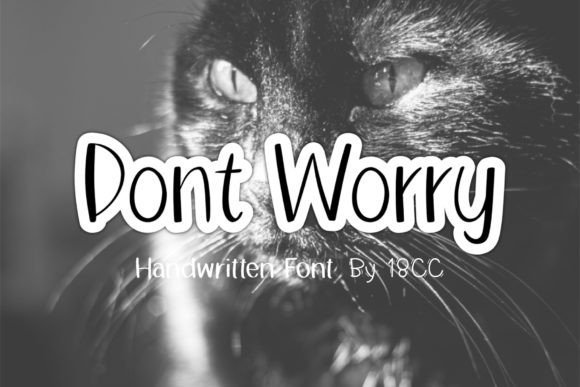
The Perfect Font for a Stress-Free Design Process
Have you ever been in the middle of a creative project, staring at a blank page, and feeling like your ideas just aren’t coming together? You’re not alone! We’ve all been there at some point or another, but what if I told you that there’s a font that can help take some of that stress away?
Enter the Dont Worry Font, a beautiful, basic handwritten font that’s perfect for logos, branding, social media, and all sorts of crafty DIY projects. This font is a game-changer for designers, offering a simple yet stylish solution that can elevate any design. With the Dont Worry Font, you can create unique and eye-catching designs without breaking a sweat.
Dont Worry Font Key Features
- Font Style: Script Font with a friendly and approachable feel
- Unique Characteristic: Unique letterforms and connections create a friendly and approachable feel, perfect for branding and marketing materials
- Language Support: Supports a wide range of languages, including Latin, Cyrillic, and Greek alphabets
Dont Worry Font Review
At first glance, the Dont Worry Font seems like a charming, whimsical font that could add a playful touch to any design. ✨ I appreciate the creative flair behind this font, with its unique combination of handwritten and sans-serif elements. The font’s irregularities and imperfections give it a friendly, approachable feel that’s perfect for casual or creative projects.
One of the things that really stands out about the Dont Worry Font is its versatility. ✨ It’s suitable for a wide range of applications, from headings and titles to body text and even logos. The font’s adaptability makes it a great choice for designers who want to add a touch of personality to their work without overwhelming the audience.
- ⚠️ Limited legibility in smaller font sizes: While the Dont Worry Font is perfect for headings and titles, it can become difficult to read in smaller font sizes.
- ⚠️ May not be suitable for formal or professional projects: The font’s playful, whimsical nature may not be suitable for formal or professional projects where a more serious tone is required.
Overall, I think the Dont Worry Font is a great addition to any designer’s toolkit. While it may have some limitations, its unique personality and versatility make it a great choice for creative projects where you want to add a touch of whimsy and personality.
Tips for Getting the Most Out of the Dont Worry Font
To get the most out of the Dont Worry Font, use it for:
- Creating playful and casual designs.
- Adding a touch of whimsy to your text.
- Designing for social media and online platforms.
The Dont Worry Font is commonly used for:
- Social media graphics.
- Blog post titles.
- Watercolor illustrations or hand-drawn elements to create a soft, calming atmosphere.
- Gradients or ombre effects to add a pop of color and depth.
- Minimalist backgrounds or textures to let the quote take center stage.
Alternatives to “Dont Worry Font” for Designers
Great Vibes is a modern script font that conveys a sense of optimism and friendliness. It’s perfect for use in branding, advertising, and social media campaigns where a playful and approachable tone is desired.
Great Vibes is similar to Dont Worry Font in its informal and casual nature, but it has a more refined and elegant feel. Great Vibes is ideal for designers who want to create a sense of excitement and energy without being too loud or overwhelming.
Pacifico is a beautiful script font with a relaxed and beachy vibe. It’s perfect for use in branding, packaging, and advertising campaigns where a sense of calm and serenity is desired.
Pacifico is similar to Dont Worry Font in its informal and casual nature, but it has a more laid-back and effortless feel. Pacifico is ideal for designers who want to create a sense of tranquility and relaxation without being too boring or unengaging.